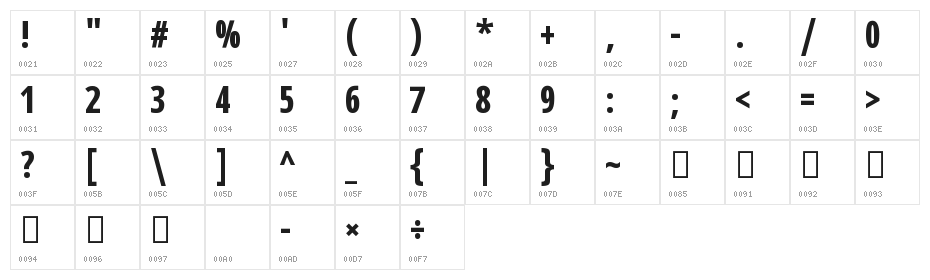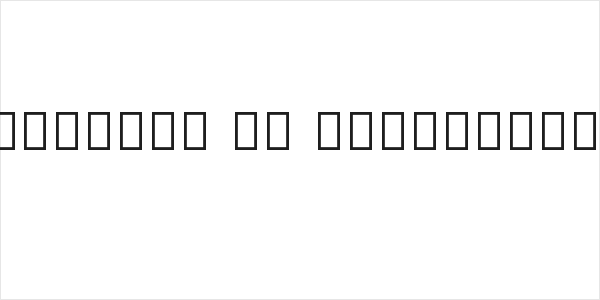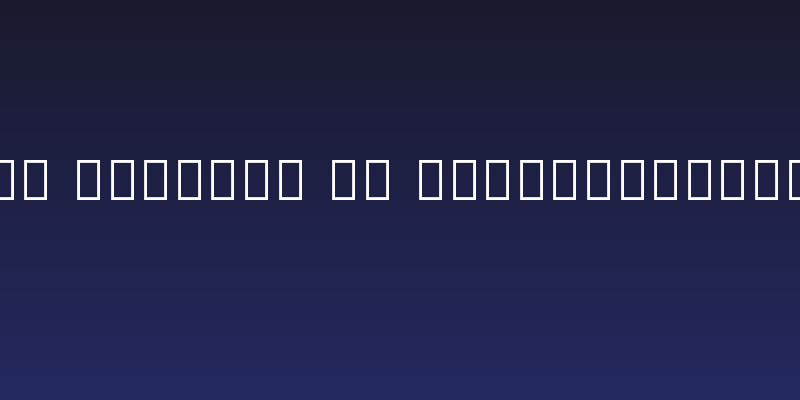
Noto Sans Sinhala UI ExtraCondensed Bold Font
Noto Sans Sinhala UI ExtraCondensed Bold Description
This font is characterized by its extra-condensed style, offering a bold and impactful appearance. The characters are tightly spaced, enhancing its compact nature, which is ideal for fitting more text into limited spaces. The bold weight ensures strong visibility and readability, making it suitable for attention-grabbing headlines or titles. The design is modern and clean, with a sans-serif structure that provides a straightforward and uncluttered look. Its uniform stroke width contributes to a low contrast, maintaining a consistent visual flow across all characters. This font is particularly effective in digital interfaces where space is a premium, ensuring clarity and emphasis without overwhelming the viewer.
| Use Case | Headlines, UI design |
| Proposed Projects | Ideal for UI design, digital interfaces, headlines, and any project requiring space-efficient typography. |